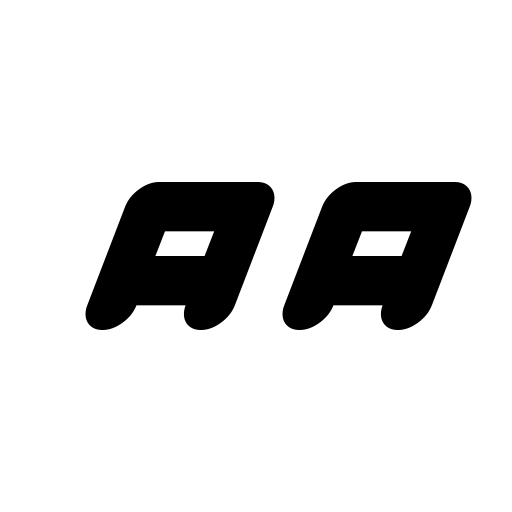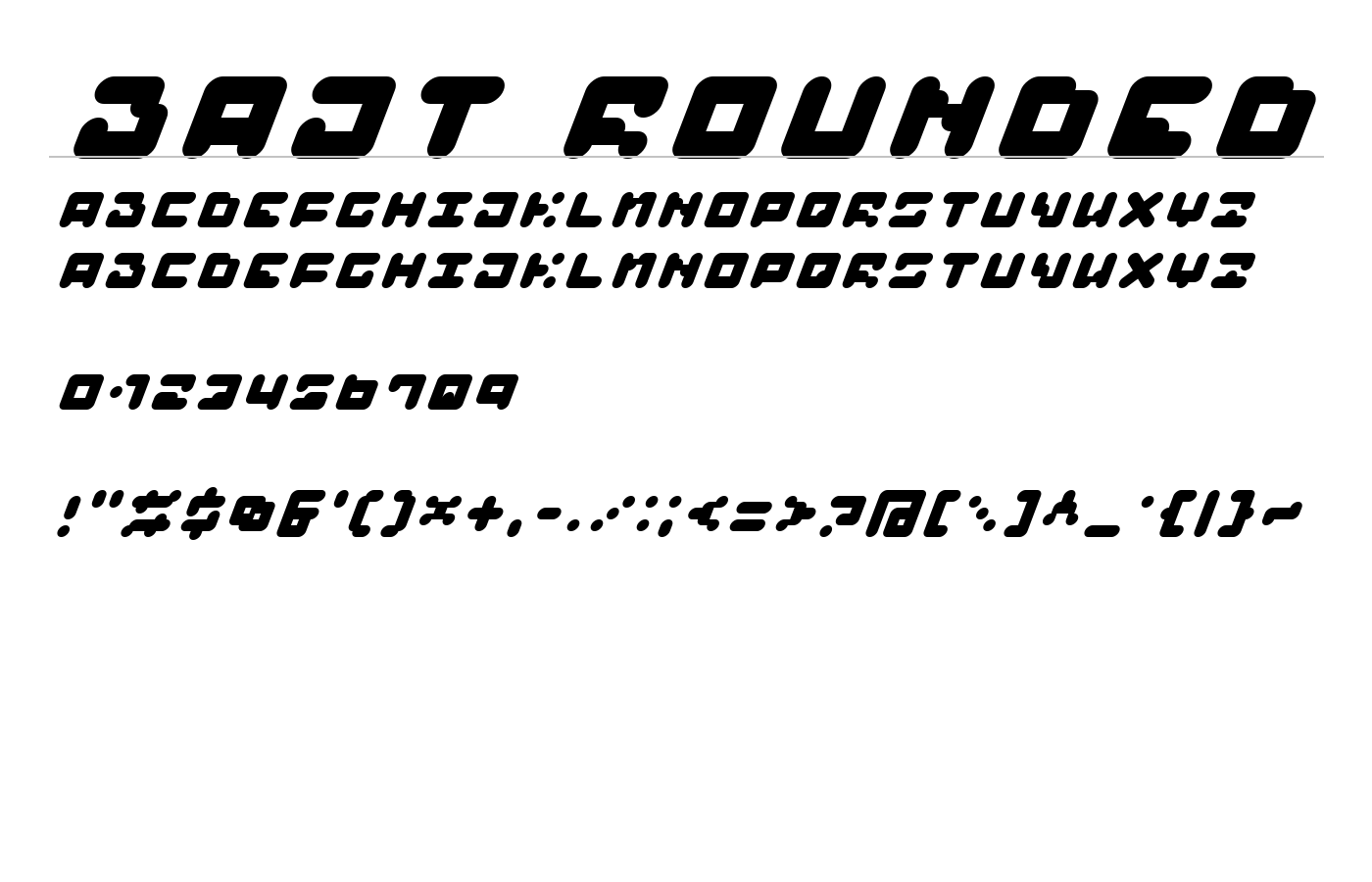
BAJT Rounded is a bold, modern sans serif font characterized by its smooth, rounded edges and slightly condensed letterforms, giving it a friendly yet strong presence. Its consistent stroke weight and italic slant create a dynamic and futuristic vibe, making it ideal for technology, sports, or creative branding that seeks a sleek and energetic appeal. This font works well in headlines, logos, and digital media where attention-grabbing clarity and contemporary style are desired.
BAJT Rounded Font
About BAJT Rounded Font
| Font family | BAJT Rounded Font |
| Designer | Bartosz Panek |